Support Variables for Variable Font Axes (e.g. Round, Width, Weight)
Would Figma consider supporting Variables for variable font axes in the future?
We're using Google Sans Flex and switch between two visual modes:
Formal - `Rond = 0`
Friendly/Cute - `Rond = 100`
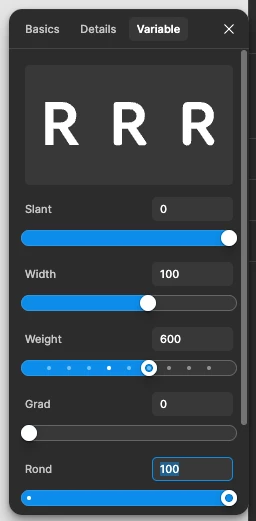
Example of the ROND (Round) axis in Google Sans Flex. We use this setting to switch between formal and friendly typography styles.​​​​​
Currently, font axis values such as Round (ROND) cannot be controlled by Variables. Because of this, we have to maintain two separate text-style systems even though everything else is identical.
after add rond
If variable font axes could be bound to Variables, we could switch typography modes through Variables and maintain a single text-style system instead.
Example concept: Variable Font axes such as Weight and ROND could be connected to Figma Variables, allowing typography modes to switch automatically.
This would be especially useful for design systems that use variable fonts to express different brand personalities across themes or modes.
Also read and write access to variable axes beyond wght would make a real difference, and I'd add openTypeFeatures to the same request: it's readable today but read-only, so a plugin can see which stylistic sets a designer has enabled and has no way to apply them.
Today fontName only reports the nearest named instance, so any custom axis value set in the type panel is invisible to us, and alternates are a one-way street.
Worth noting the axis data is already in the file, it just isn't surfaced: the old Inspect panel used to output font-variation-settings (it disappeared with Dev Mode), and FONT_VARIATIONS exists as a VariableScope in the REST API spec while being absent from the plugin typings entirely.